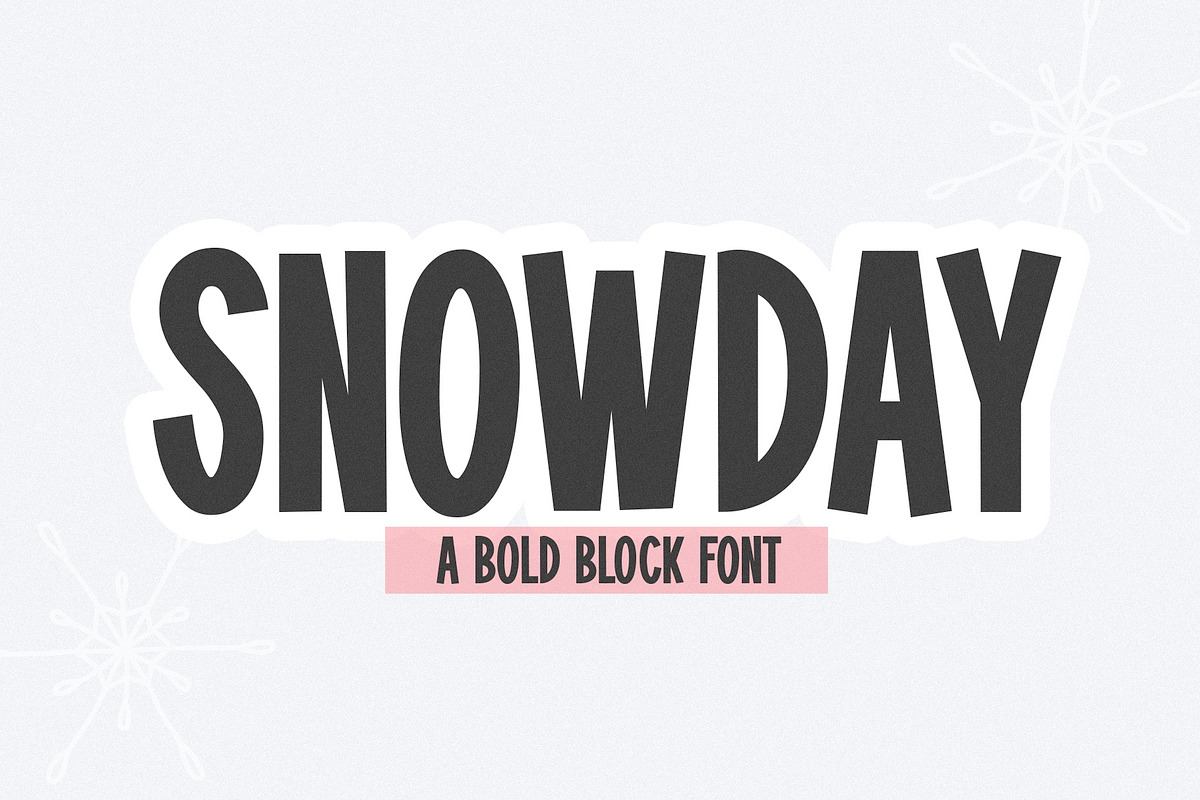
Snowday | Fun Block Font Free Download
Snowday | Fun Block Font Free Download is a chunky, cheerful typeface that captures the magic and excitement of a winter snow day. With its bold letterforms and playful blocky style, this font is perfect for kids’ designs, holiday-themed projects, classroom materials, crafts, and anything that calls for a fun, frosty vibe.
Its friendly and approachable look makes it ideal for headlines, posters, games, and DIY printables. Snowday is easy to read while still bursting with personality—perfect for bringing joyful energy to your creative work.
Let your creativity snowball with the bold and fun spirit of Snowday!